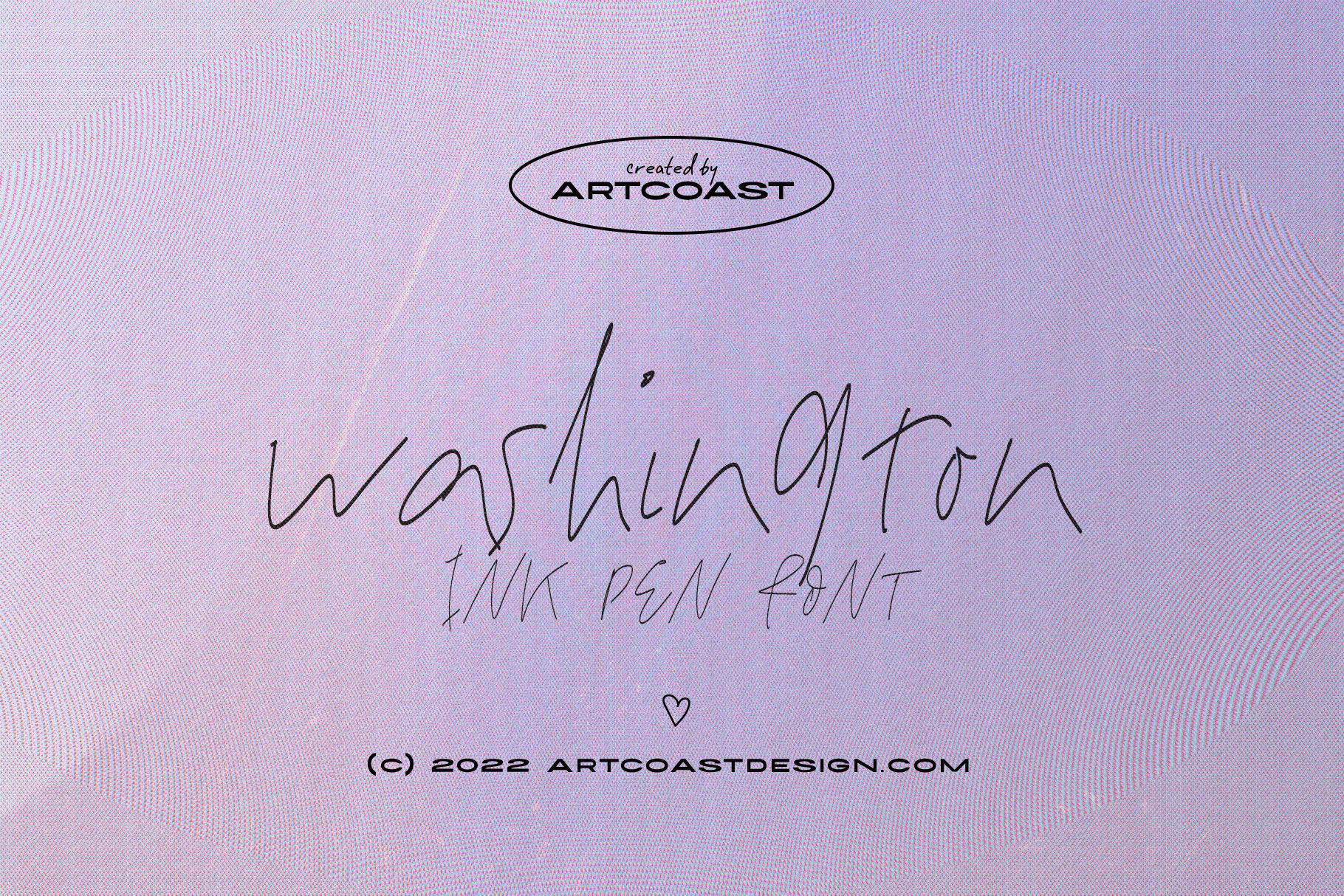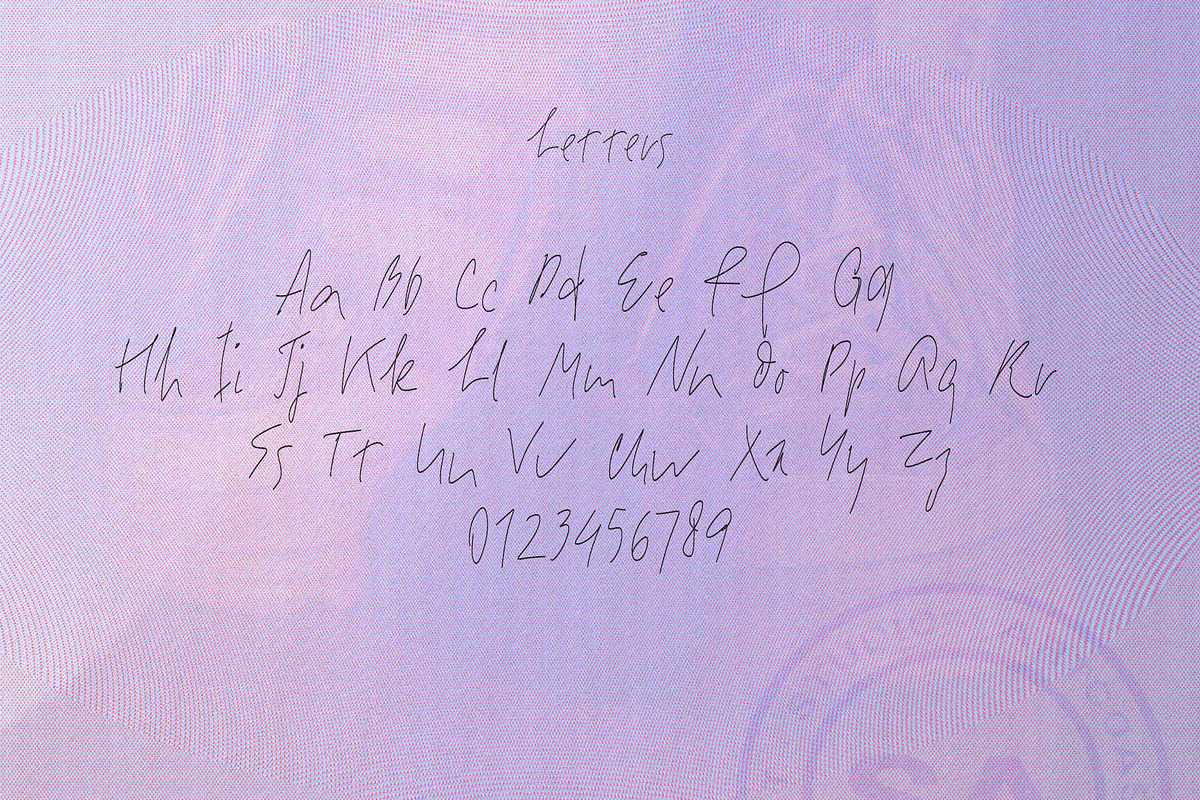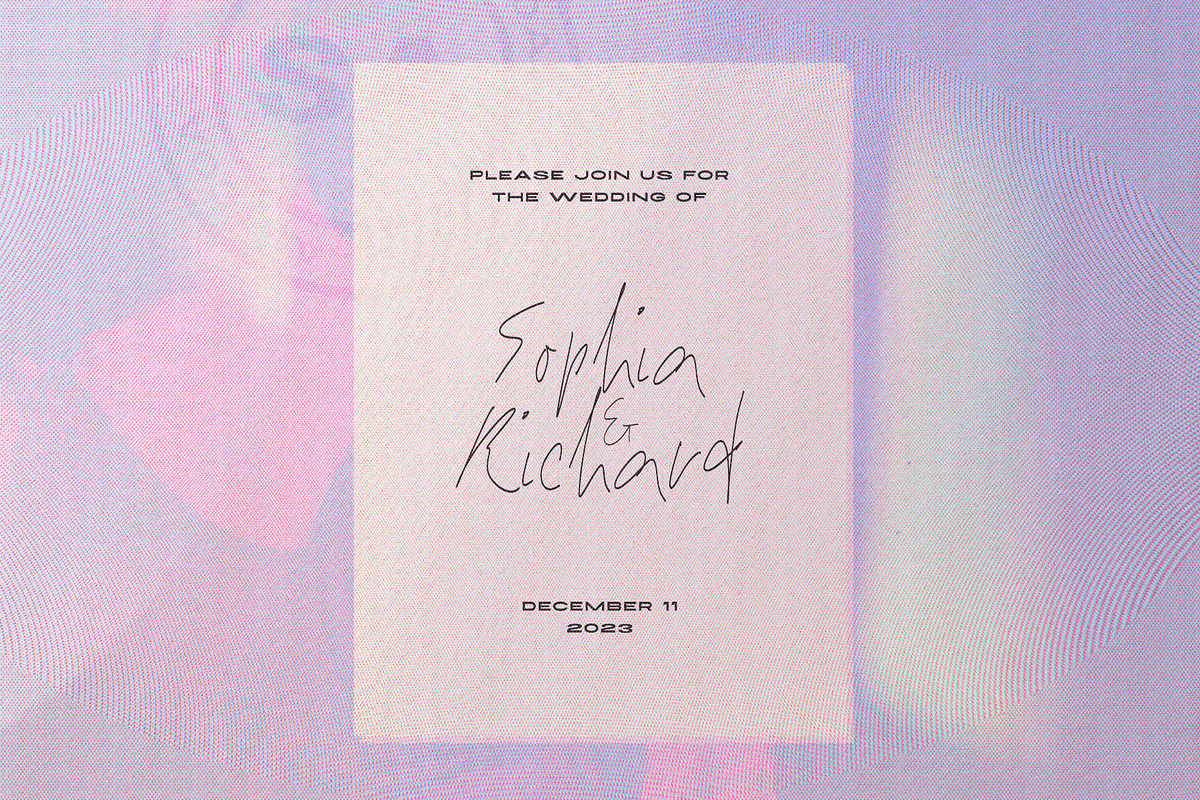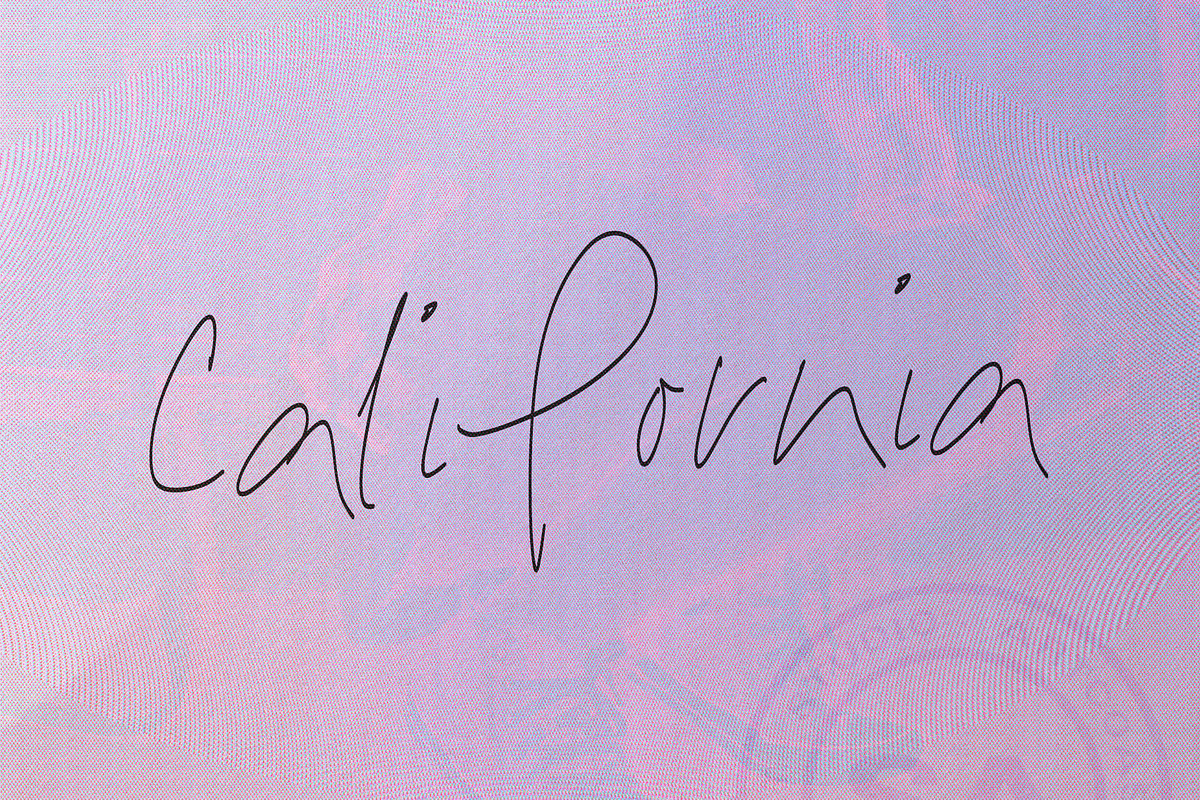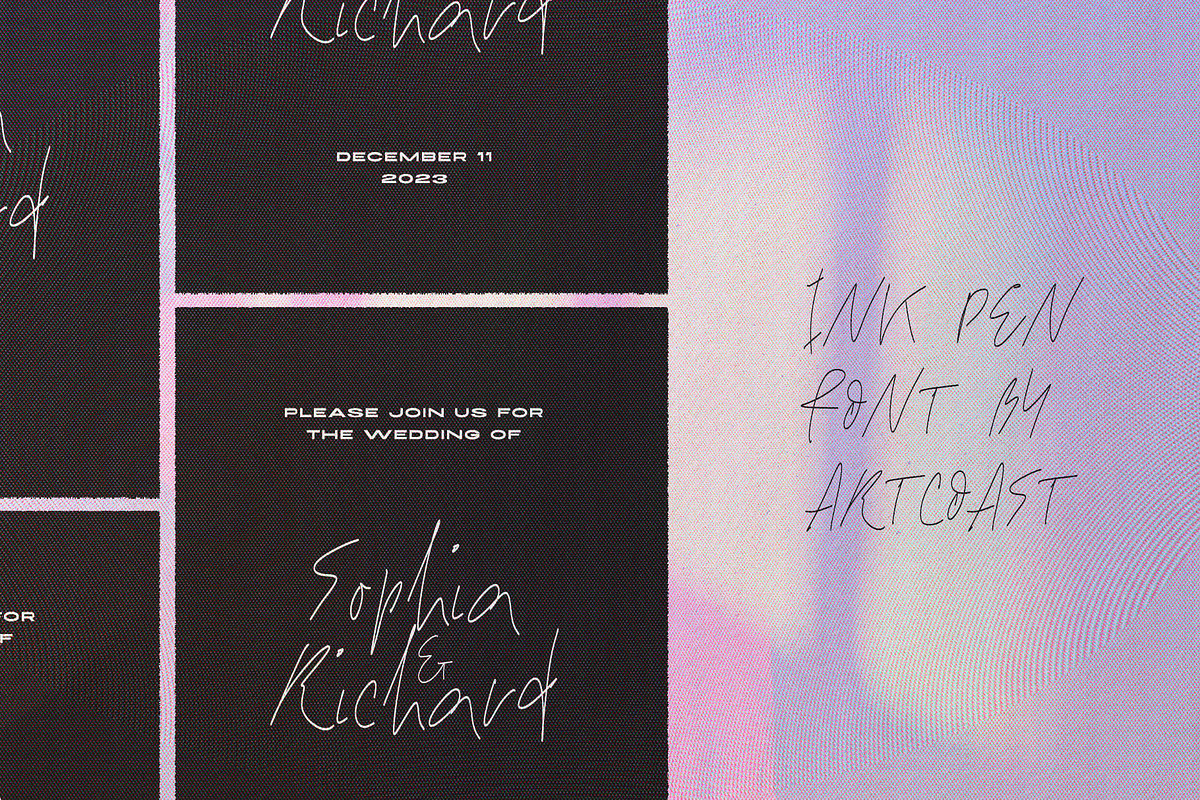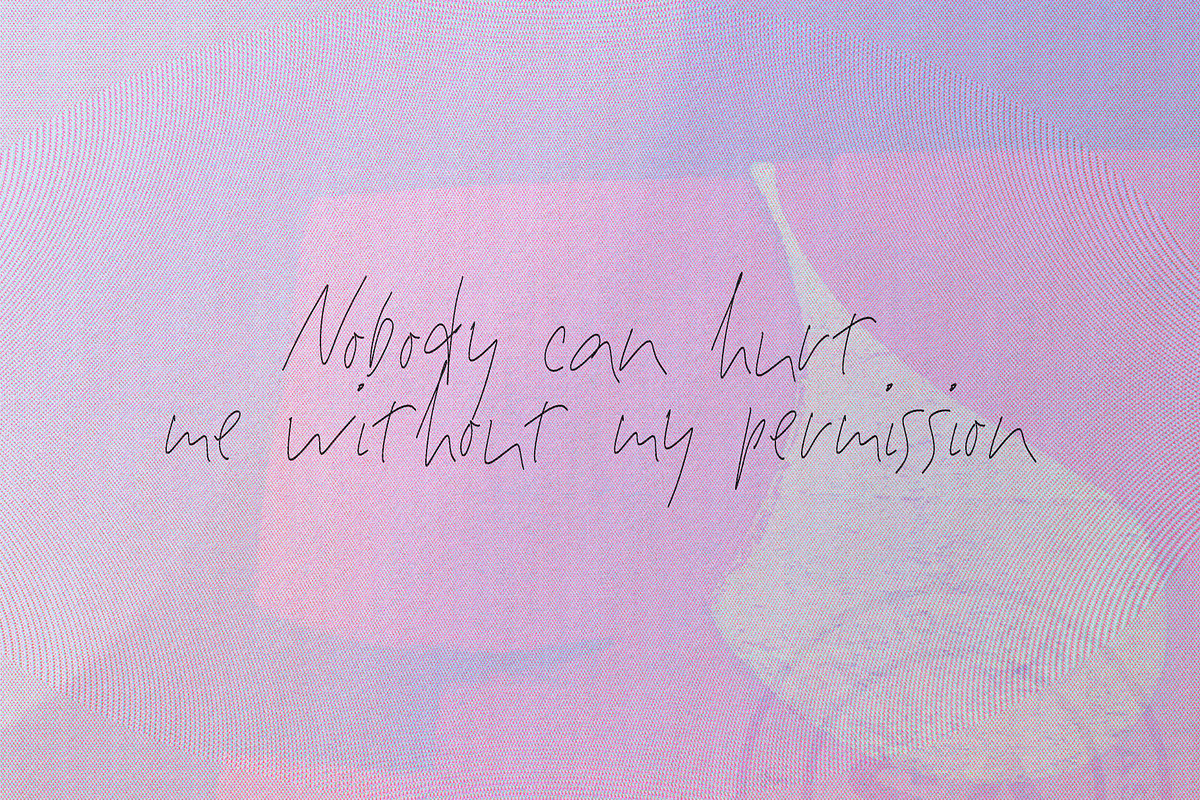
Washington Ink Pen Handwritten Font
Looking for a handwritten font that will make your wedding invitations look amazing? Look no further than SA Washington! This beautiful font is written with a thin ink pen and looks great on any type of paper. Whether you're looking for a classic cursive font or something a little more unique, SA Washington is the perfect choice. And because it's written with a pen, it has a natural and organic feel that will add a special touch to your wedding day. So don't wait any longer, order your SA Washington font today!